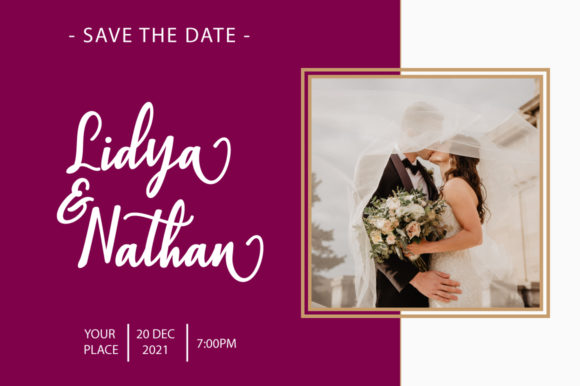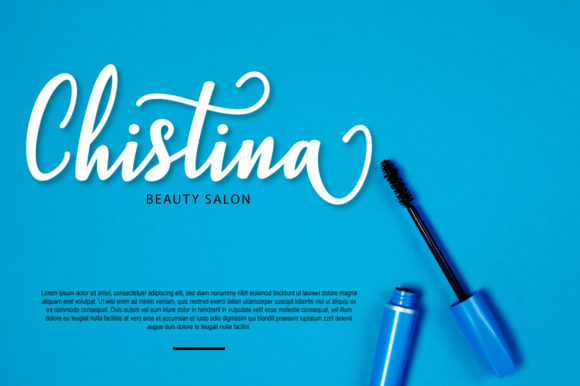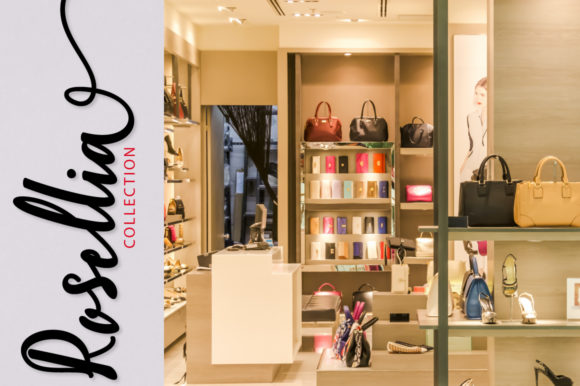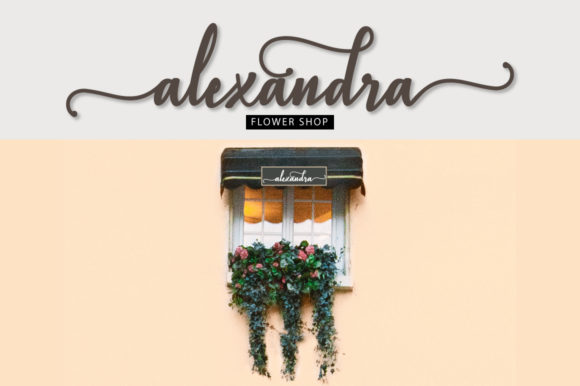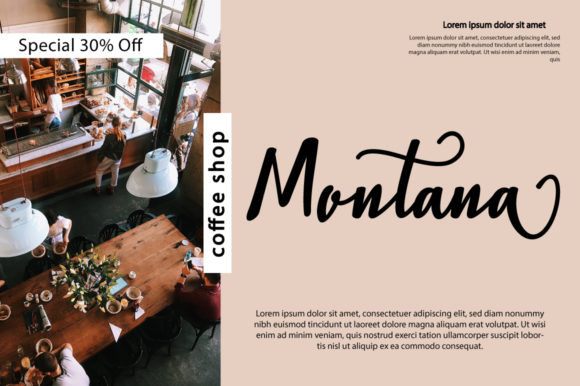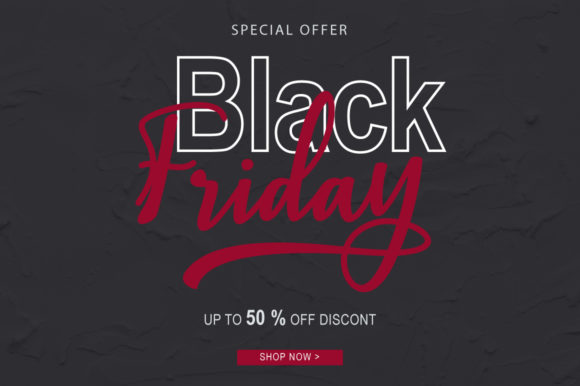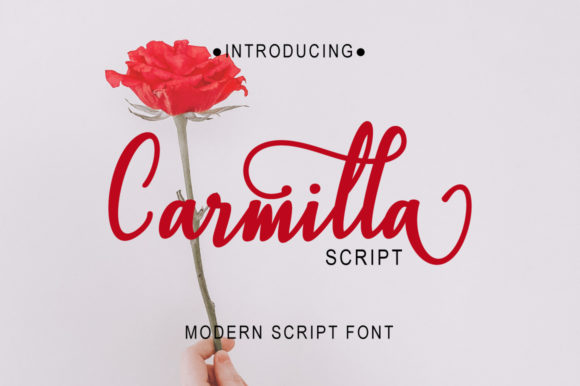
The Elusive Font: My Journey with Carmilla
I still remember the design project that led me to discover the stunning Carmilla font. I was working on a luxury brand’s brochure, and my client was adamant about using a unique, handwritten font that would reflect their high-end products. I scoured the internet, tried countless fonts, but nothing seemed to fit the bill. That was until I stumbled upon Carmilla – a beautiful, light handwritten font that instantly caught my attention.
The moment I opened the font in my design software, I knew I had found the one. Carmilla exudes elegance, sophistication, and a touch of whimsy, making it perfect for luxury brands, high-end products, or any design project that requires a touch of glamour.
- ✨ Elegant and sophisticated: Carmilla’s unique feel and stunning impact make it perfect for luxury designs.
- ✅ Highly versatile: This font works beautifully for both digital and print projects, from brochures to social media graphics.
- 💫 Attention-grabbing: Carmilla’s distinctive style ensures your design will stand out from the crowd.
While Carmilla is an exceptional font, there are a few things to keep in mind:
- ⚠️ Legibility at small sizes: Like many handwritten fonts, Carmilla can be a bit tricky to read at very small sizes (below 10pt). Make sure to test it in your design before finalizing.
- 🤔 Limited use in body text: While Carmilla is perfect for headlines and titles, it might not be the best choice for lengthy body text due to its elegant, cursive nature.
The Story Behind Carmilla
Carmilla was designed by a talented type designer who drew inspiration from classic luxury brands and high-end fashion. The font’s unique feel and stunning impact are a result of careful craftsmanship and attention to detail. While the designer’s true identity remains a mystery, their work has left a lasting impact on the design community.
| Author | masinong |
Q: What type of designs is Carmilla best suited for?
A: Carmilla is perfect for luxury designs, high-end products, formal events, and any project that requires a touch of elegance and sophistication.
Q: Is Carmilla a difficult font to read?
A: Carmilla can be a bit challenging to read at small sizes or in long blocks of text, but it’s perfect for headlines, titles, and short paragraphs.